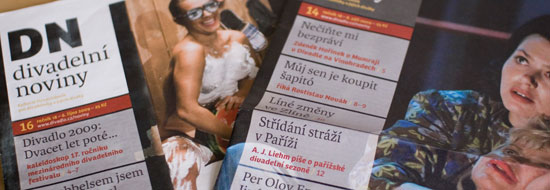
DN divadelní noviny
DateOctober 2009 | Czech design studio Designiq choose three of our typefaces for the new fresh design of Prague's theater newspaper, DN divadelní noviny. Bree Extrabold is wonderfully used in headlines and titles, showing sometimes the alternate letters for more clarity. Karmina excels as main text face and the occasional subtitle and it's partner Karmina Sans shows off in captions, subtitles and tables. Overall it is an inspiring and very pleasant design in the handy Berliner format on good quality paper. | |